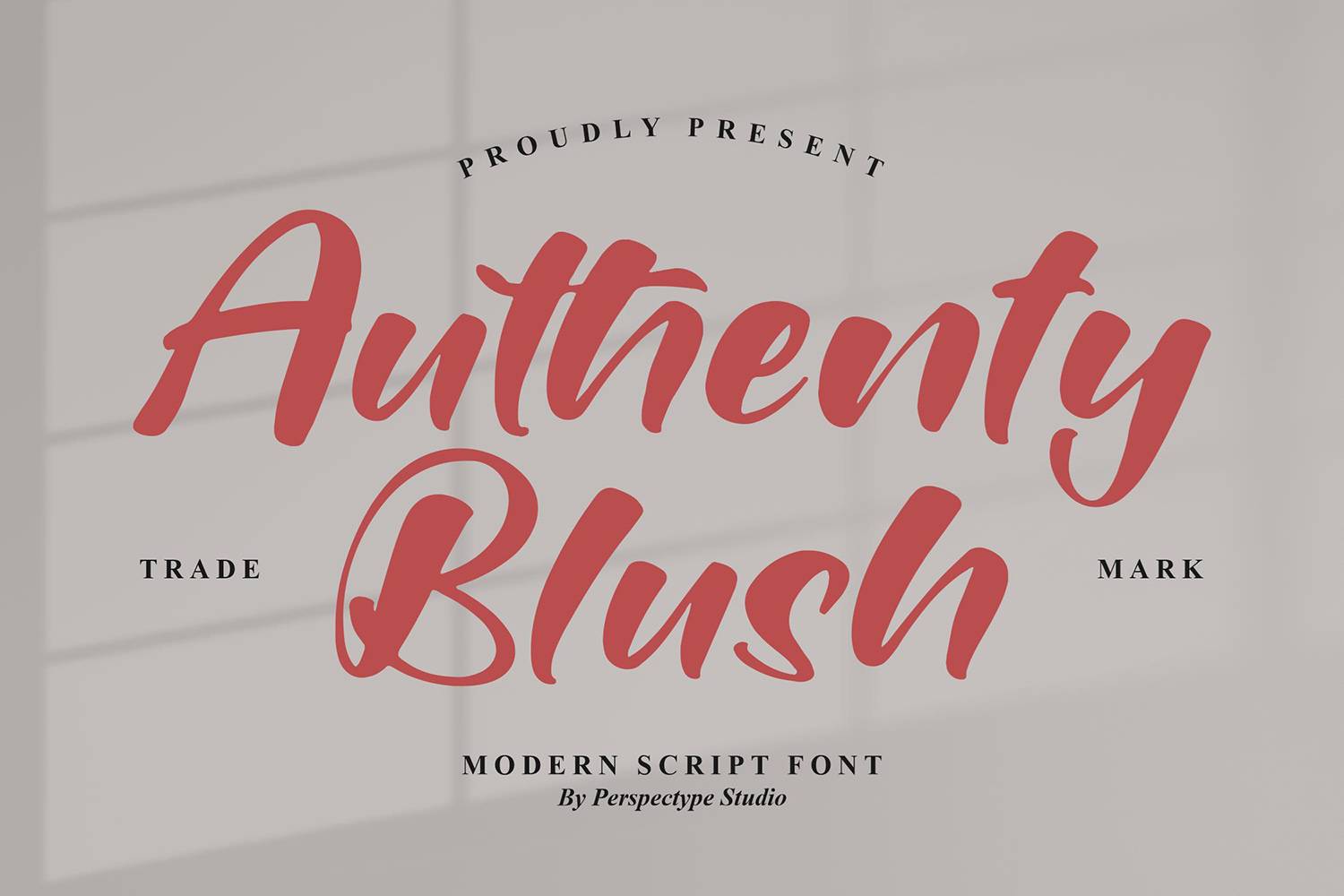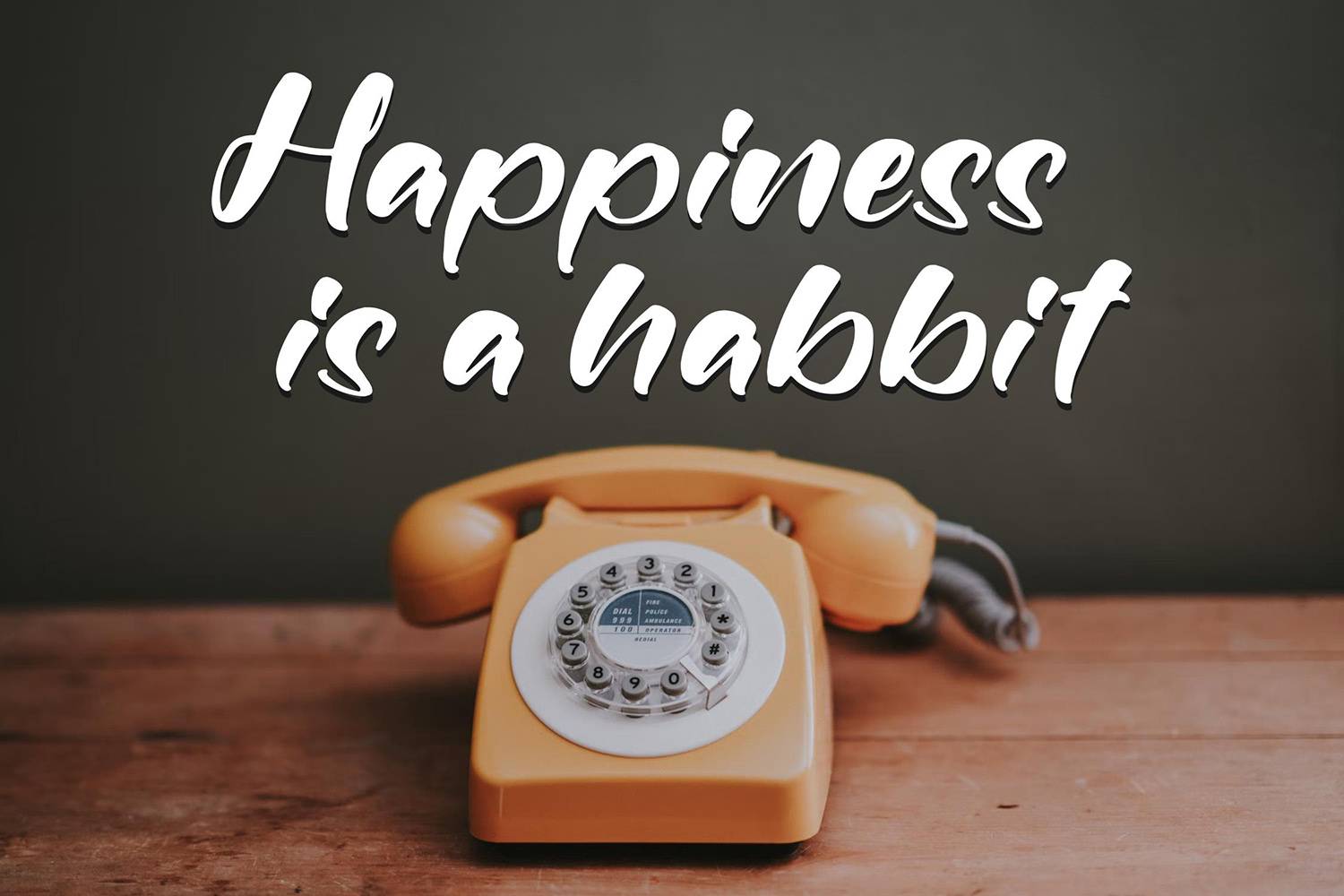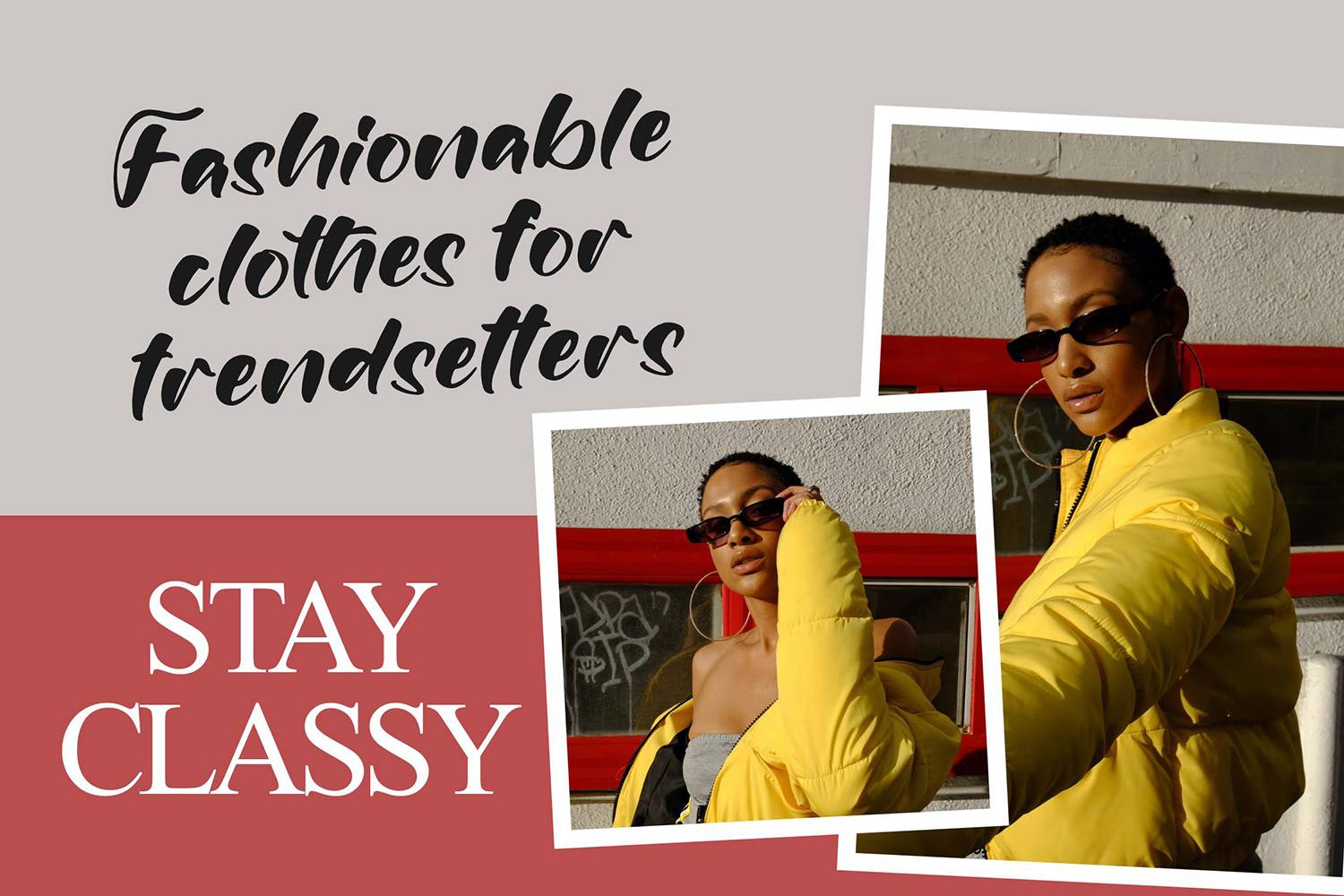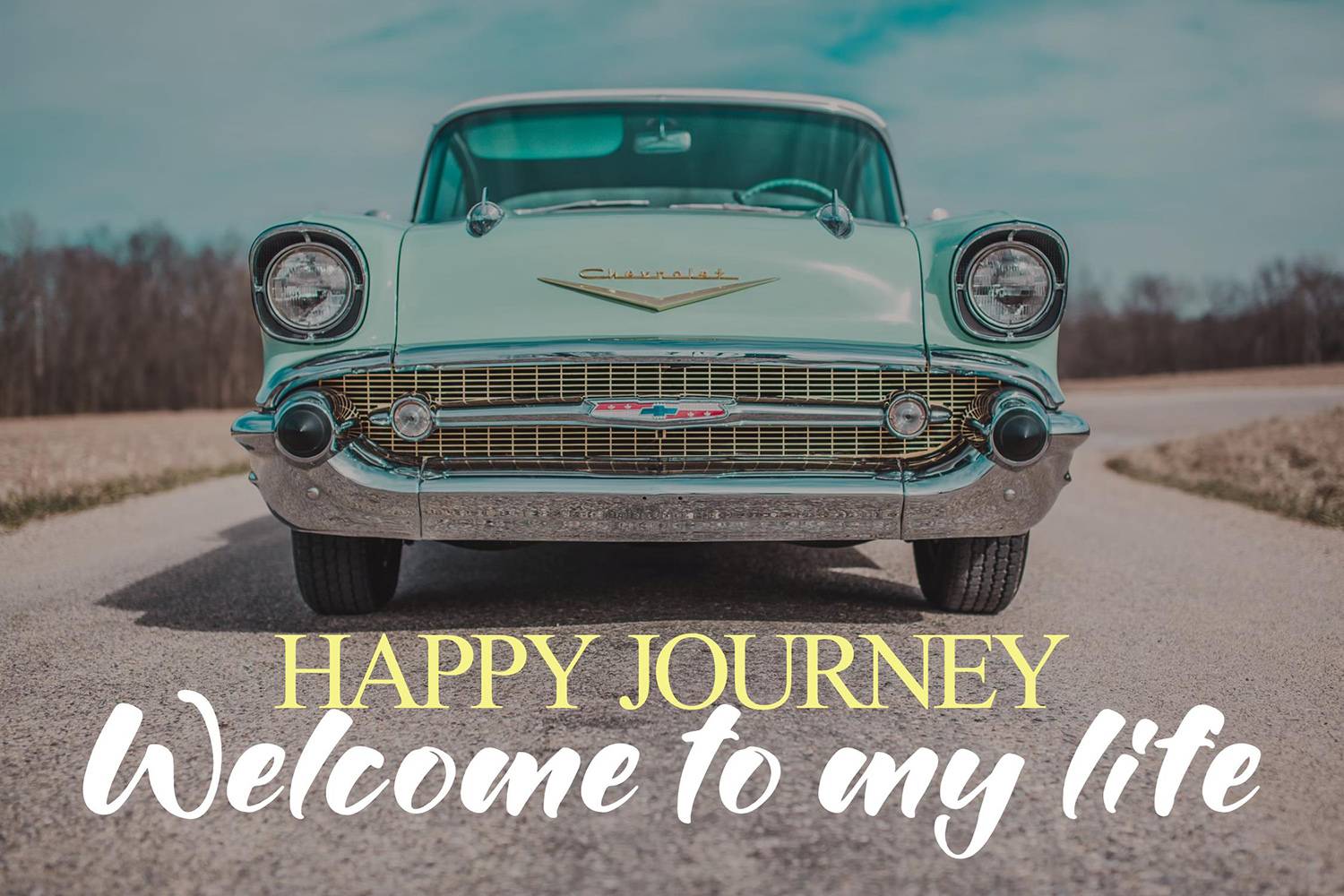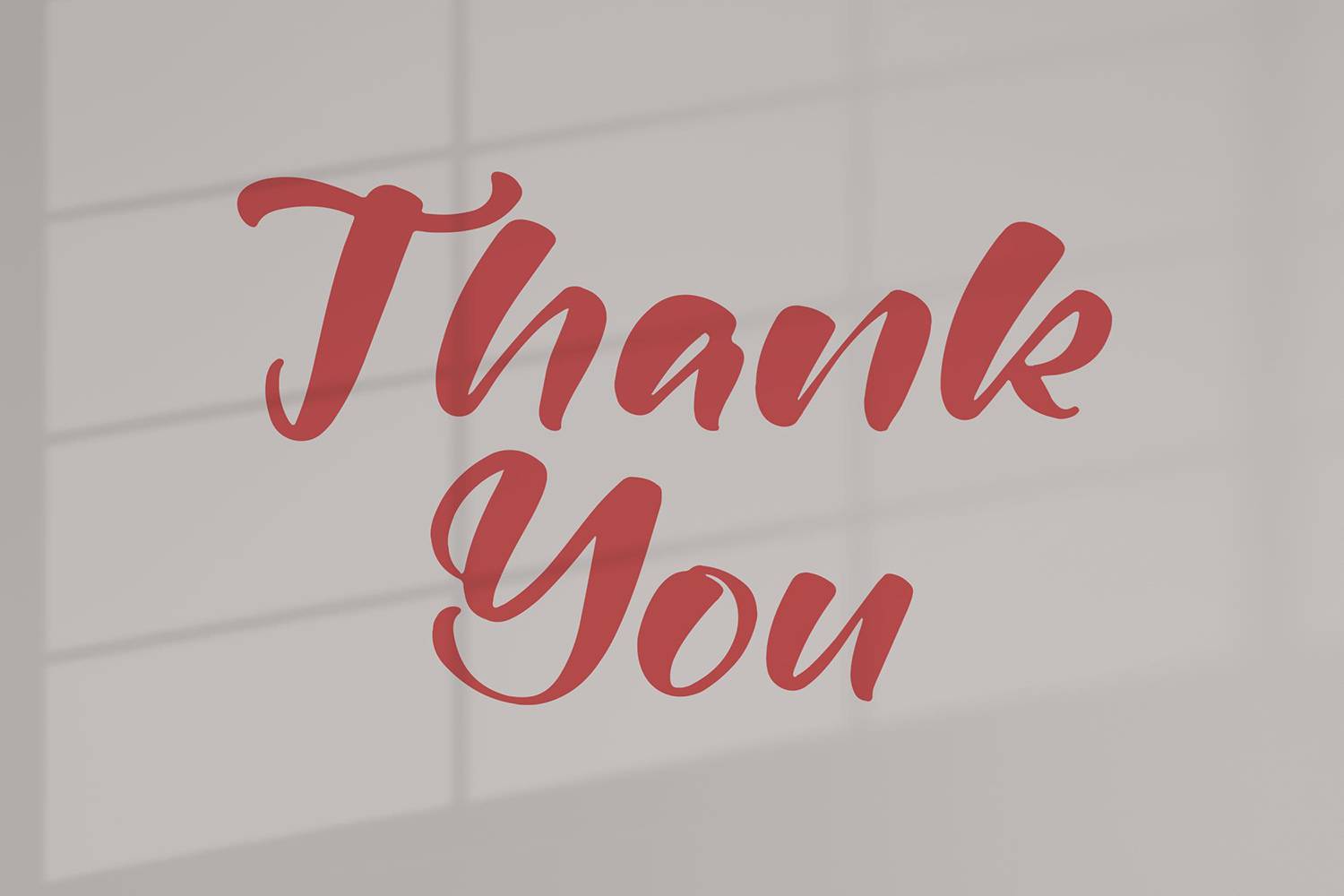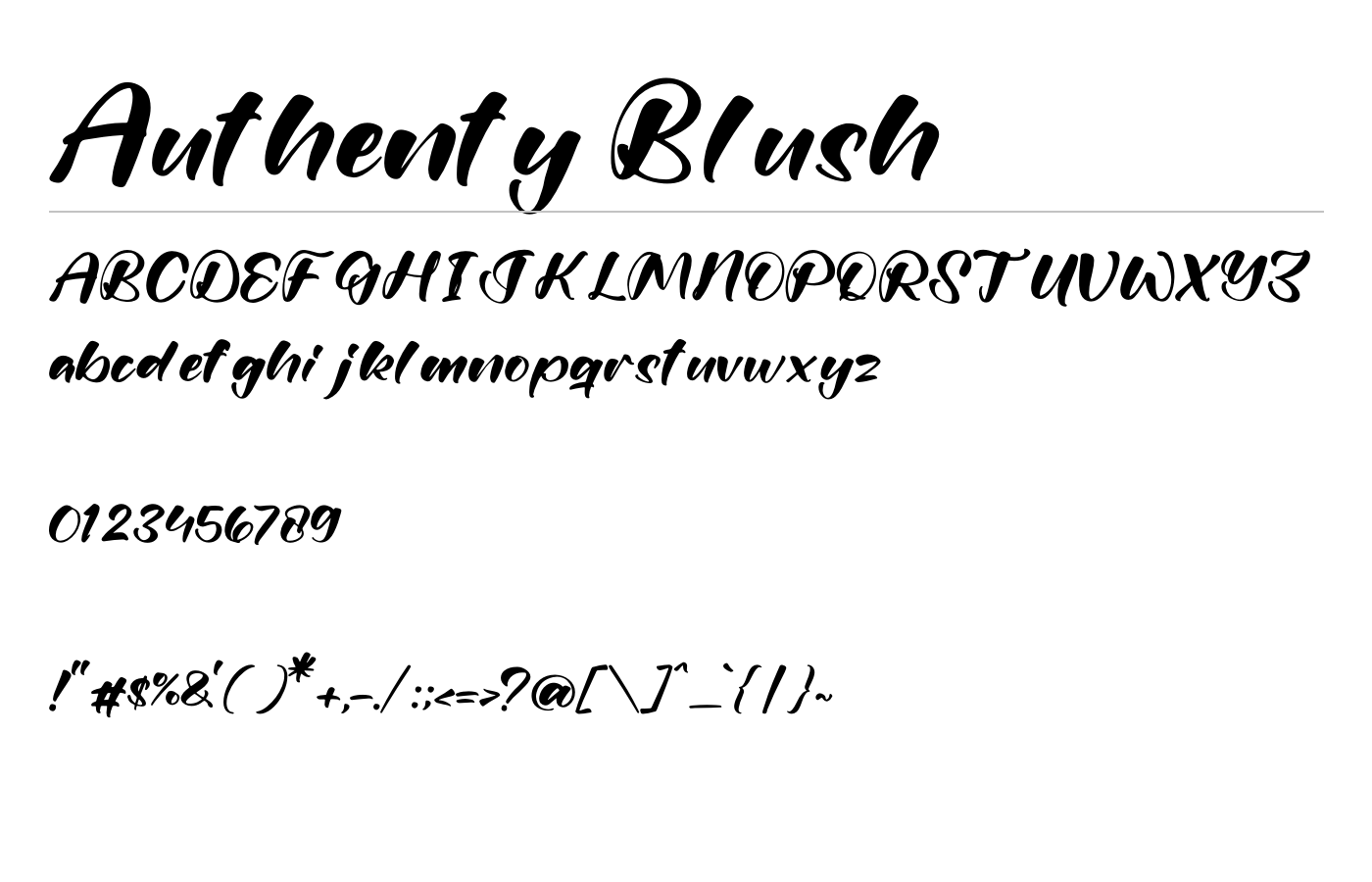
Authenty Blush is a lively, brush-script font with a smooth, hand-painted style that exudes warmth and creativity. Its balanced weight and slightly tilted, flowing letterforms make it perfect for expressive headlines, branding, and packaging that seek a personal, artistic touch. This font works wonderfully for projects aiming to convey friendliness, elegance, and a modern handcrafted vibe.
Authenty Blush Font
About Authenty Blush Font